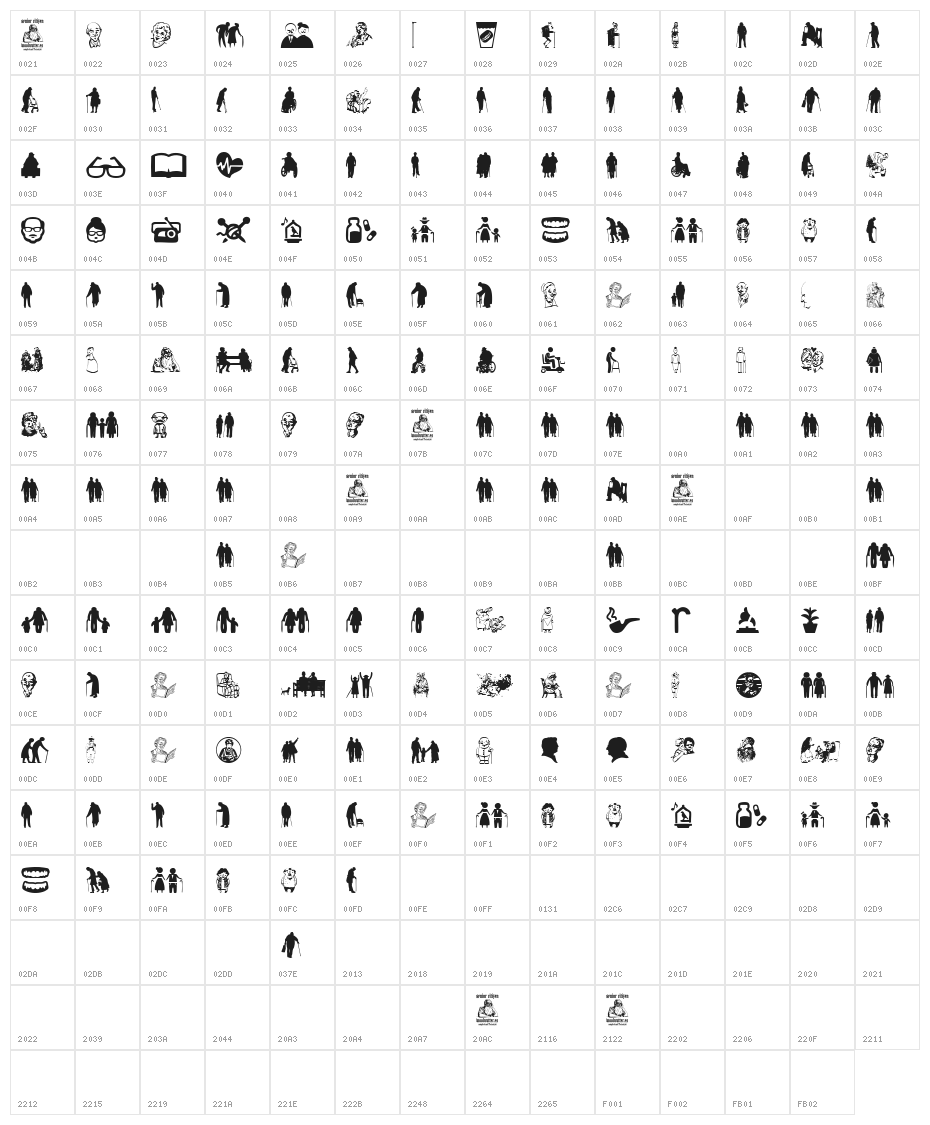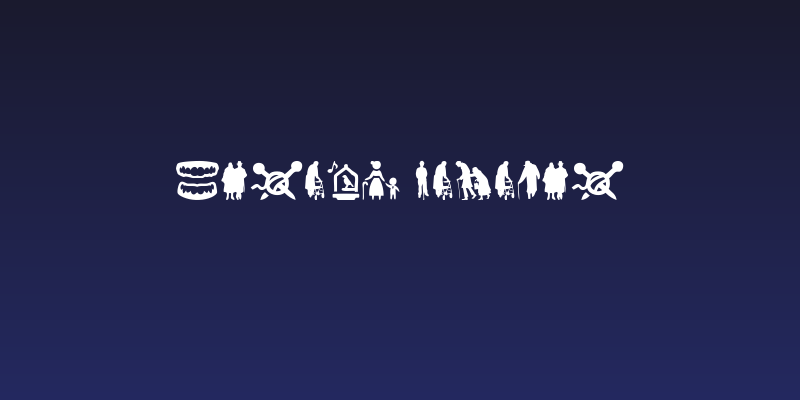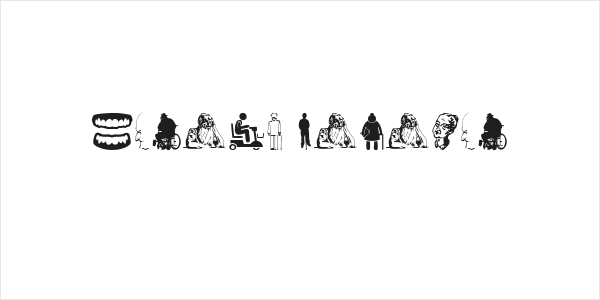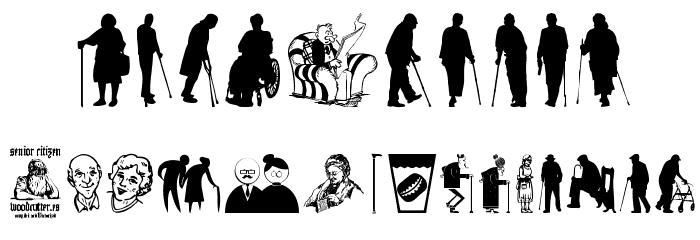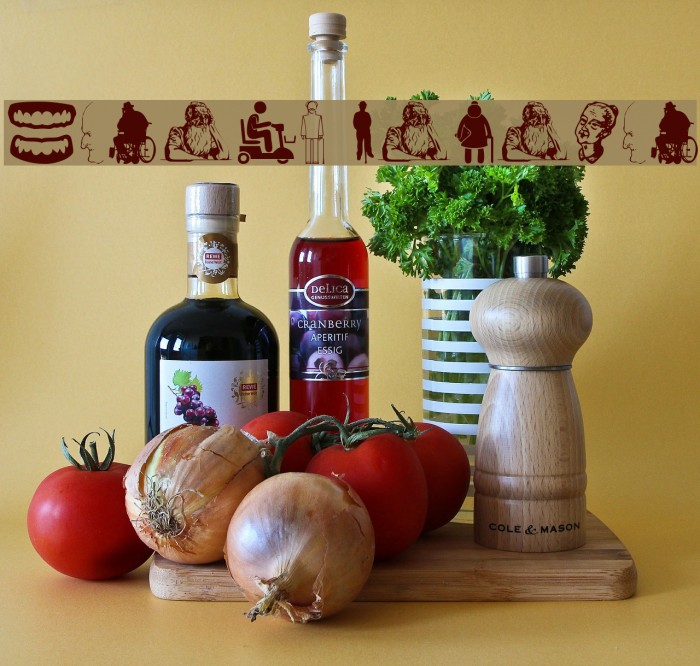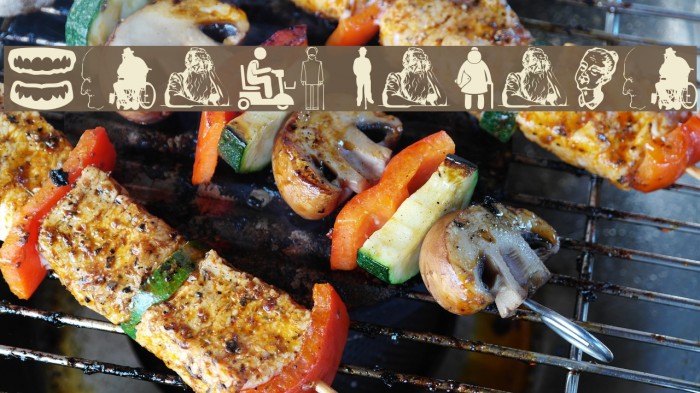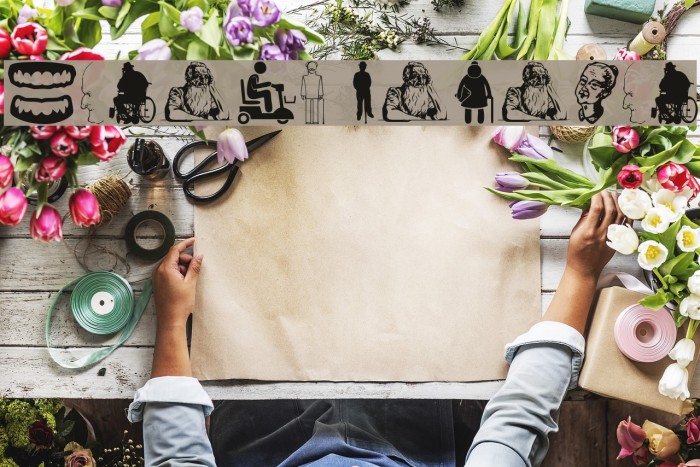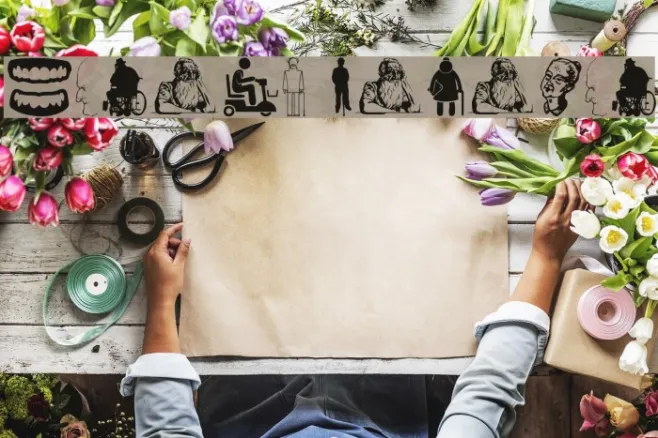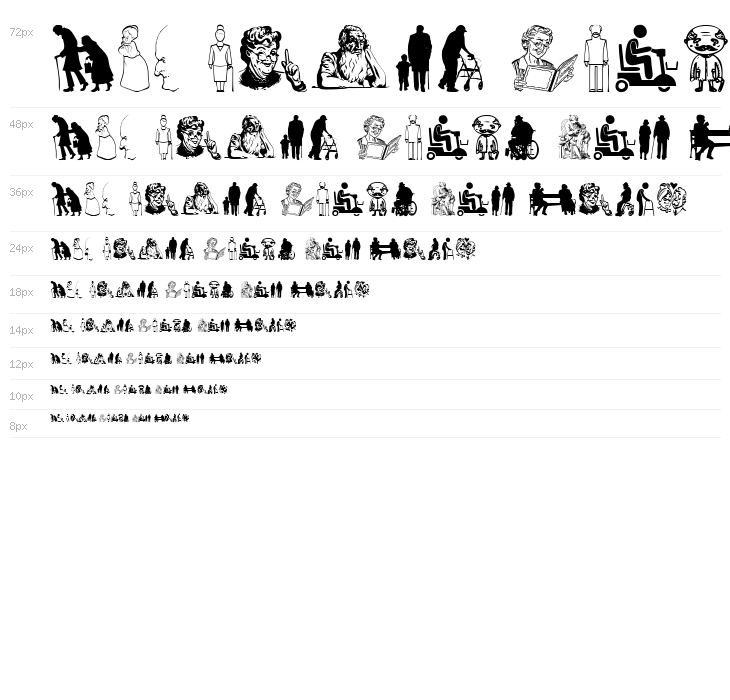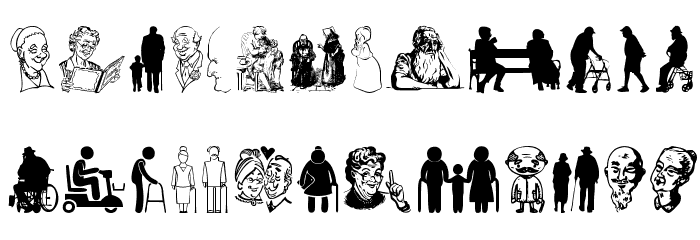
Senior Citizen Font
Senior Citizen Description
A pictogram and illustration-based font featuring silhouettes and line drawings of elderly people, mobility aids, and related objects. The glyphs are highly detailed, with a mix of solid black shapes and outlined figures, conveying themes of aging, senior care, and community.
| Overall Style | Decorative, Thematic, Pictorial |
| Use Case | Icons, Thematic illustrations, Signage, Posters |
| Proposed Projects | Infographics, healthcare brochures, retirement community branding, educational materials, awareness campaigns, signage for senior facilities. |